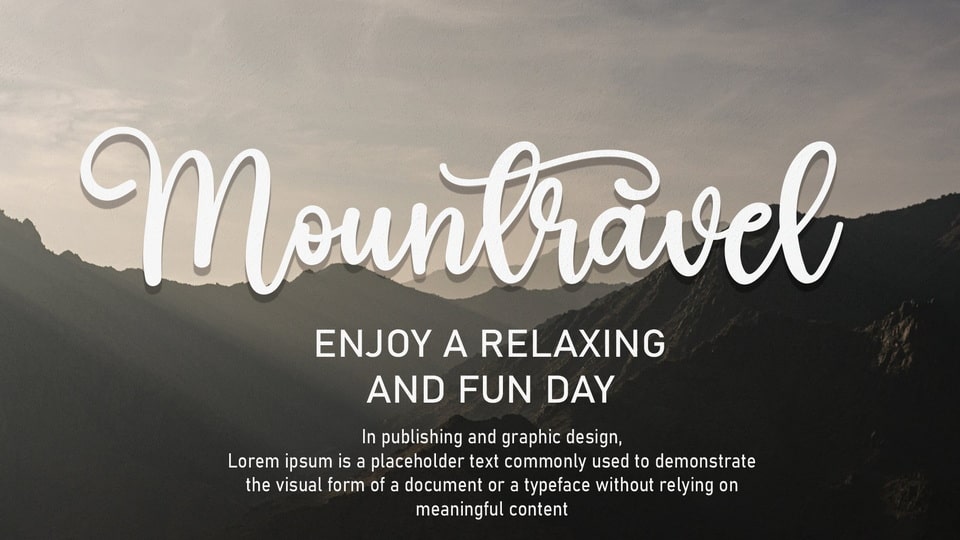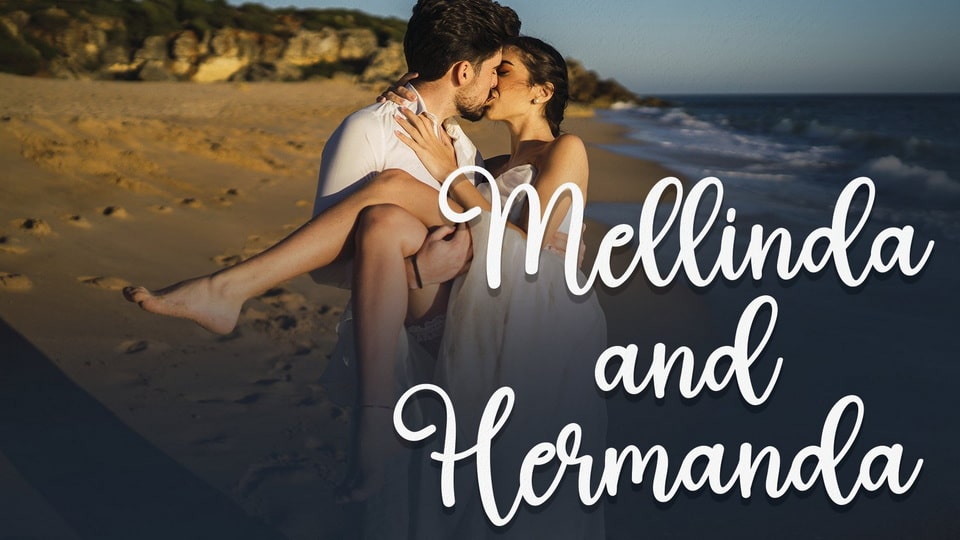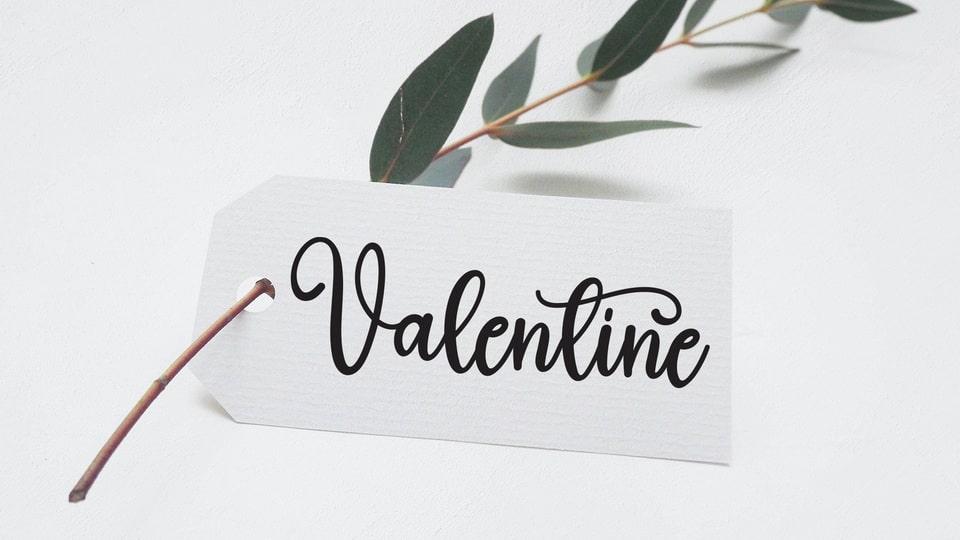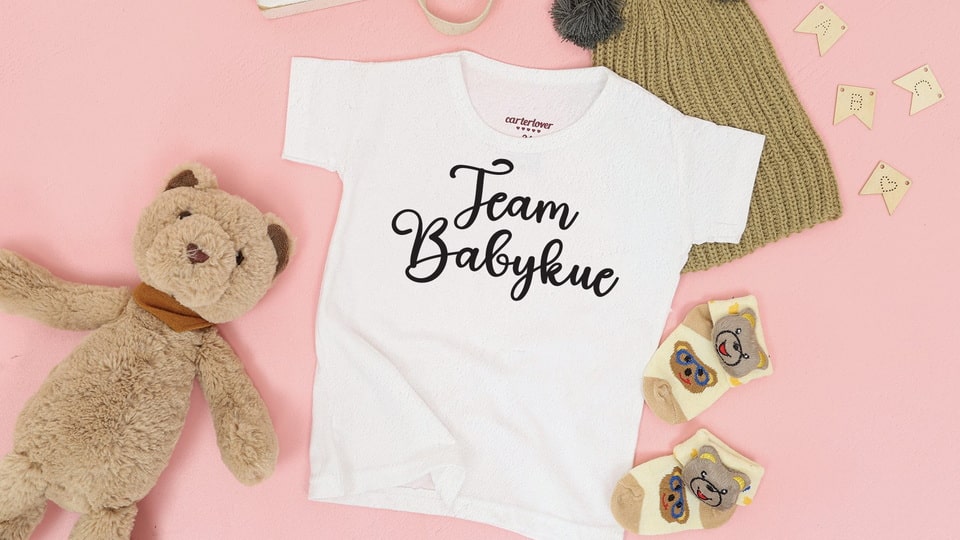
Christmas Gnome is a soft and delightful handwritten script font. Modern and elegant, this typeface is made of beautiful creative strokes.
Christmas Gnome font is perfect for your creative ideas, both formal and informal. It has a modern style with a touch of creative ideas that is very suitable to be applied anywhere that requires creative ideas such as invitation cards, letterheads, website logos, social media, banners, advertisements, brochures, packaging products, leather products, and any product that requires writing.